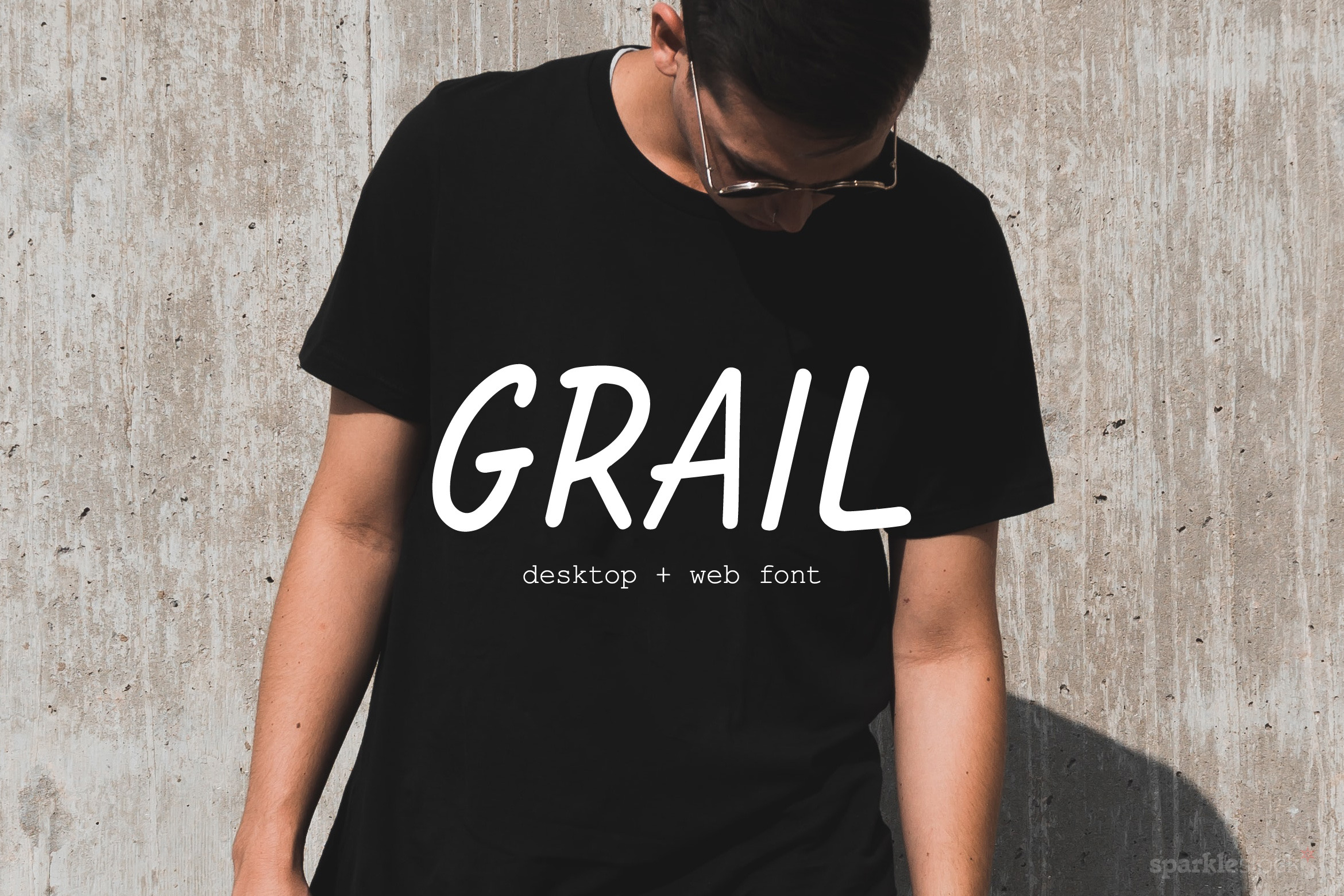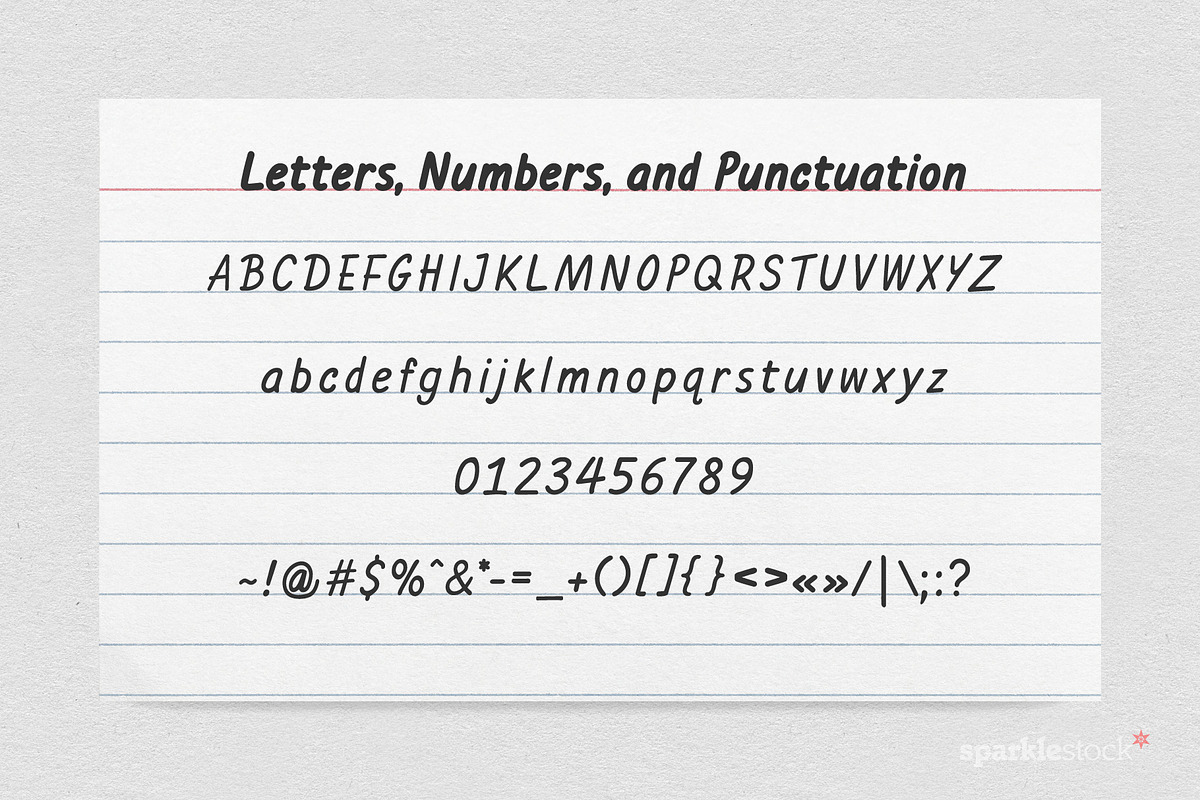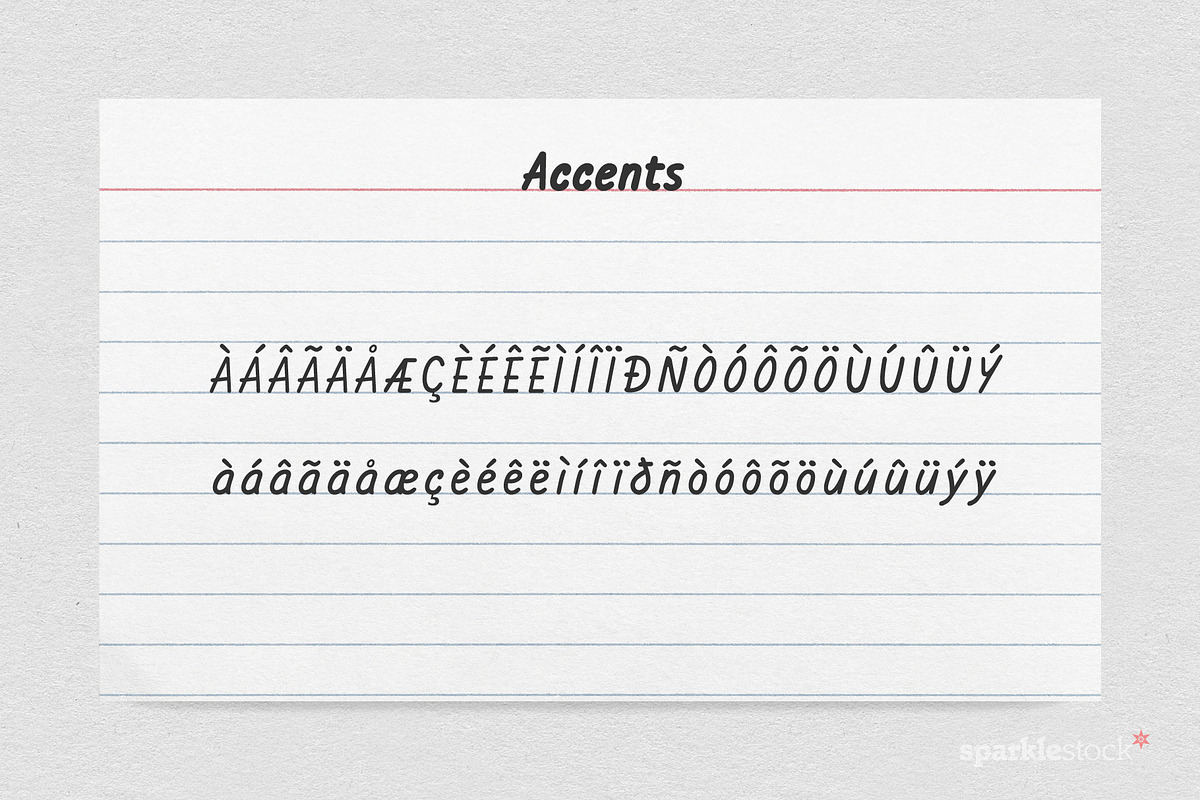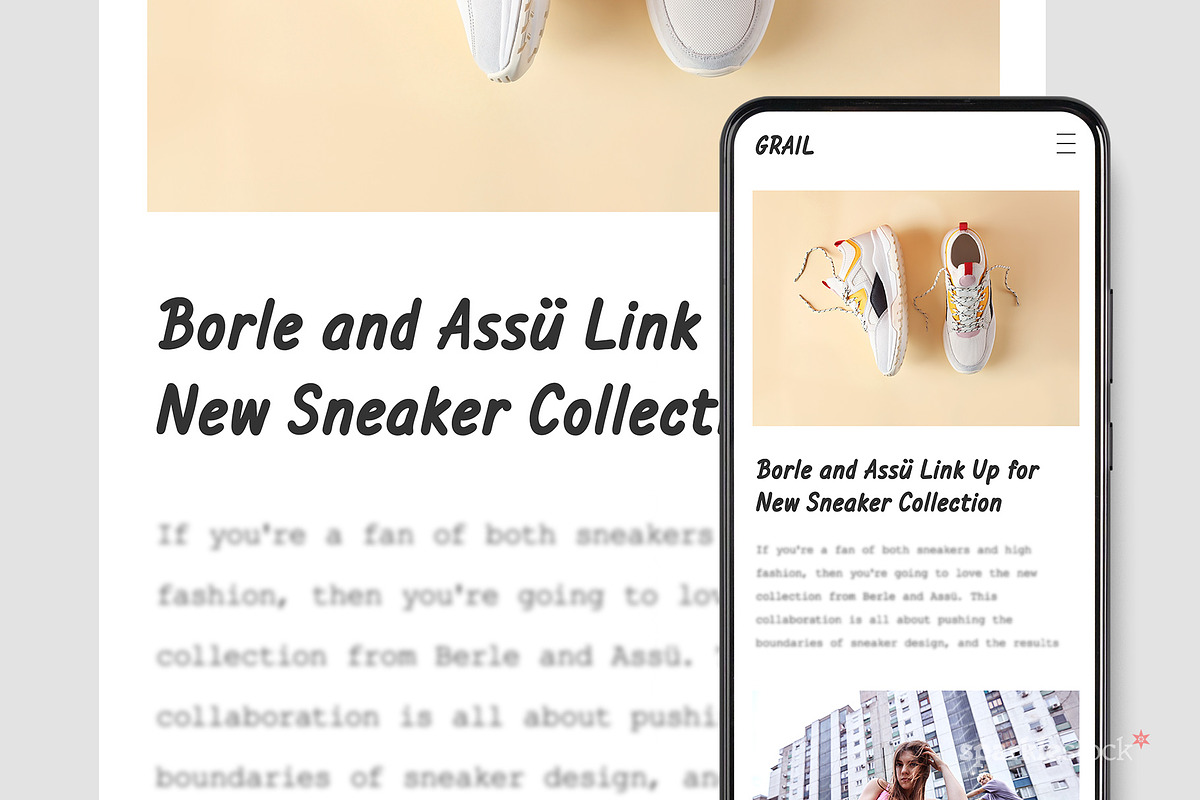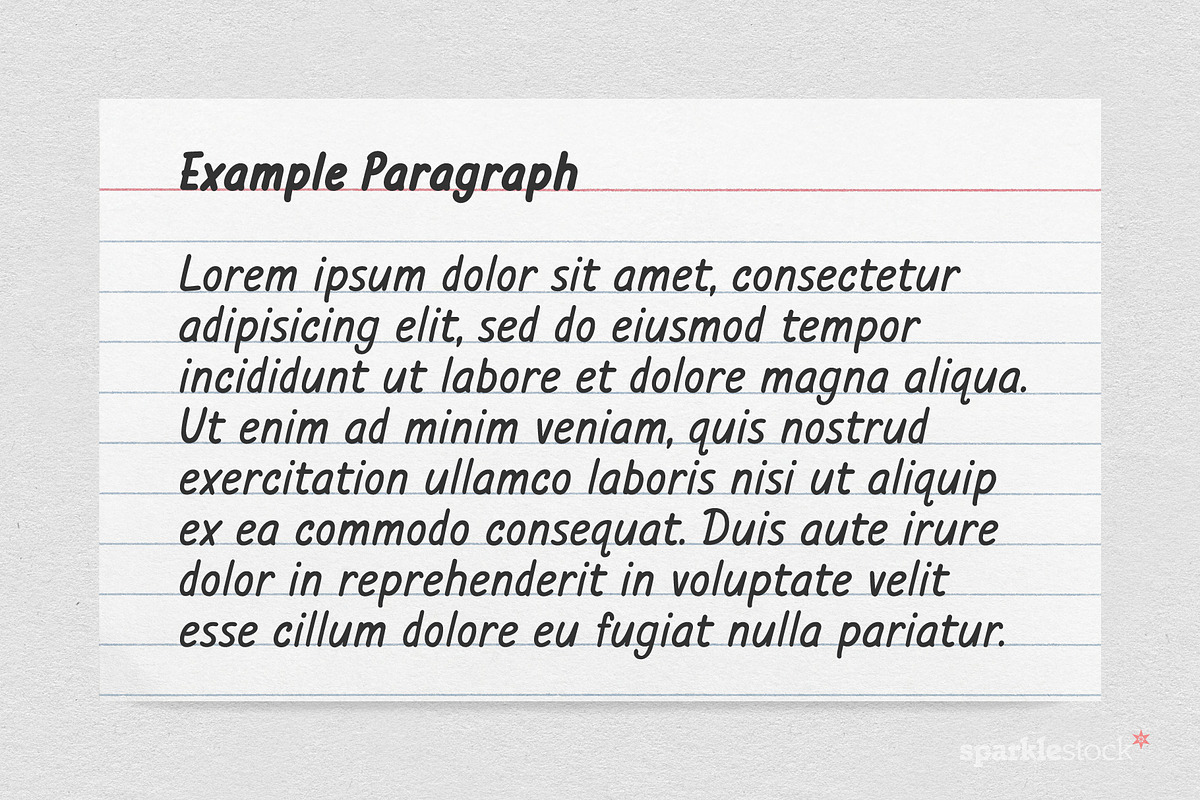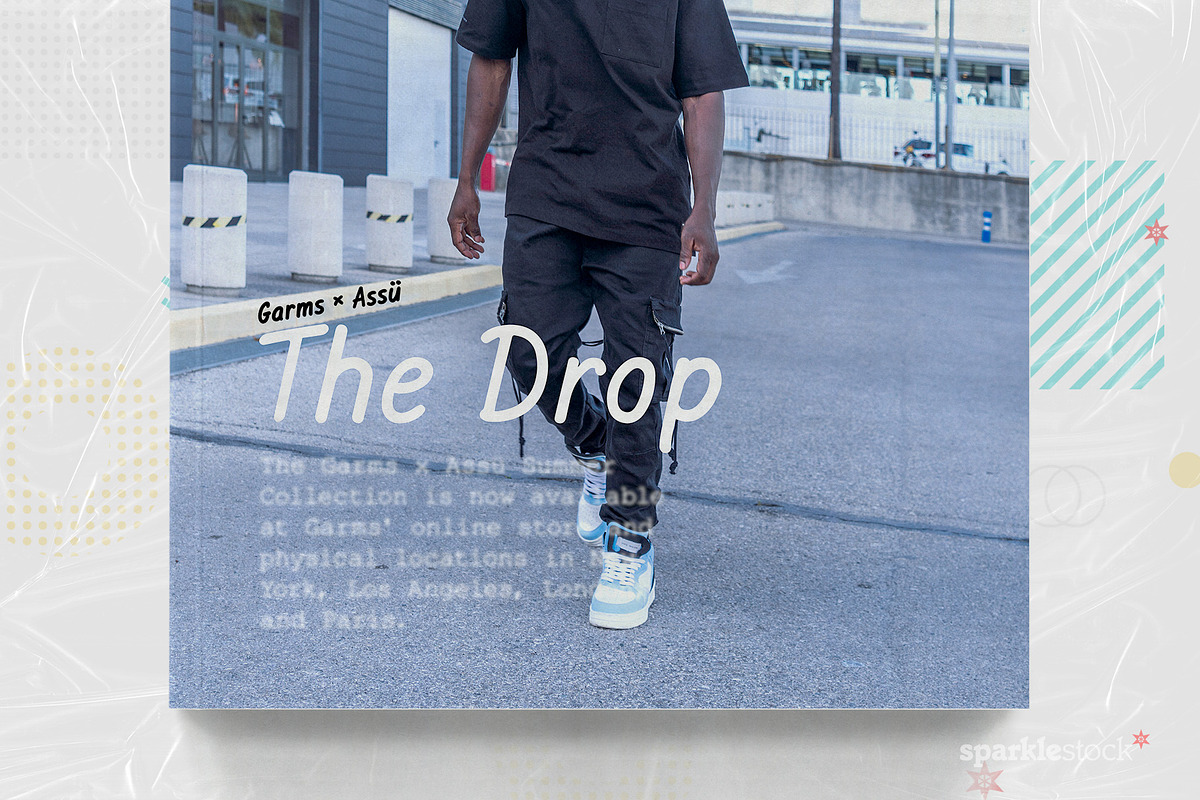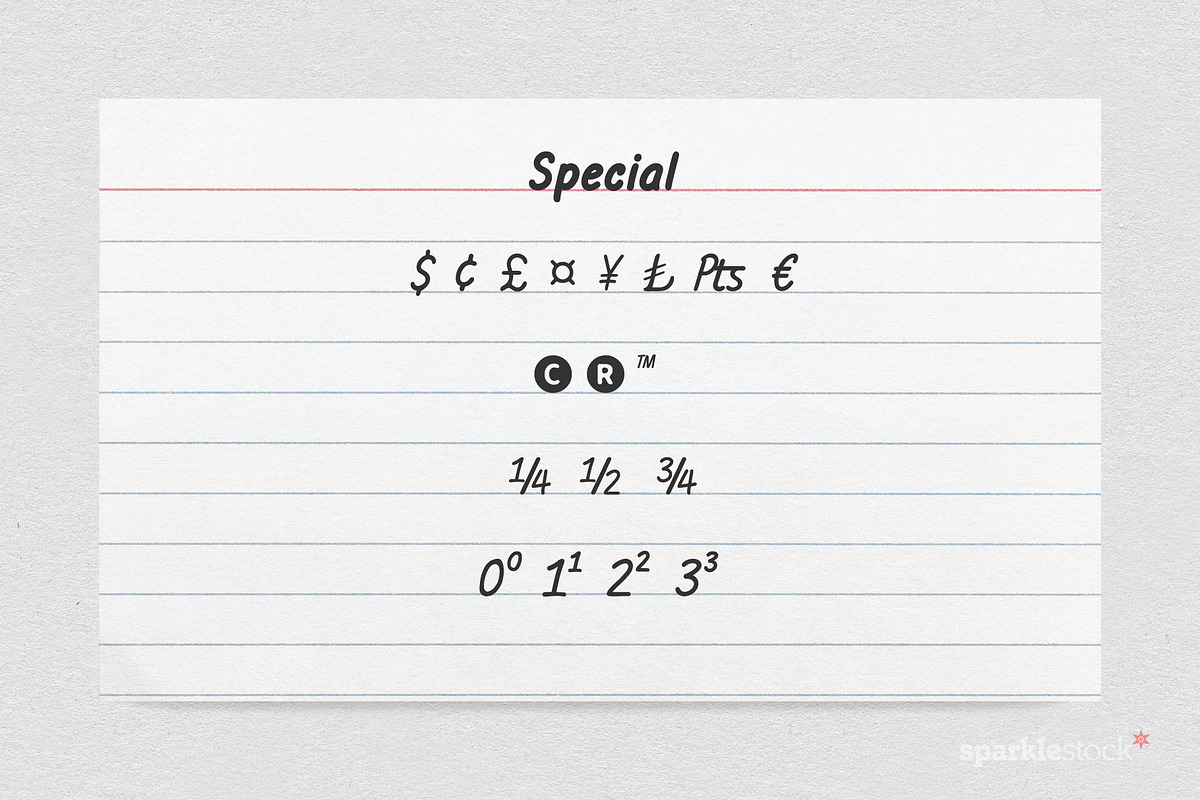
Grail Freehand Font
Drawing inspiration from the urban nature of streetwear culture, Grail is a blend of casual and confident. Its subtle imperfections exude a laid-back vibe, while the angled strokes lend a bold and daring edge. With Grail, designers can achieve a rebellious and contemporary look. This freehand font is ideal for brands looking to make a statement and stand out from the crowd. The font's versatility makes it ideal for a range of designs, from streetwear apparel to urban-themed logos and branding.